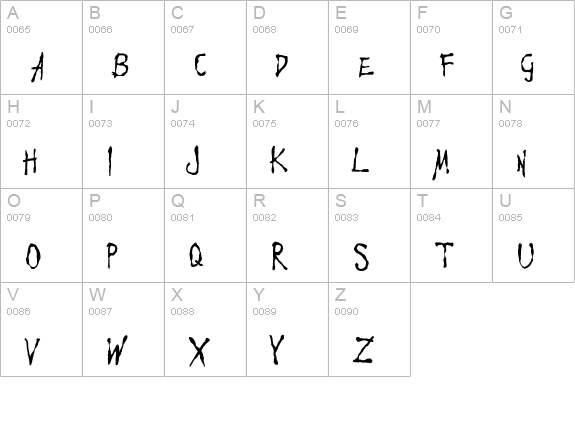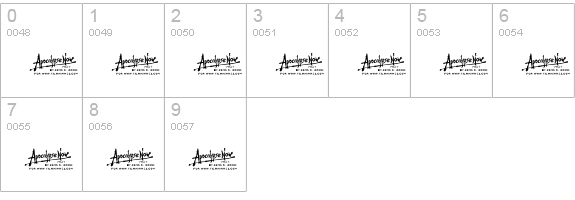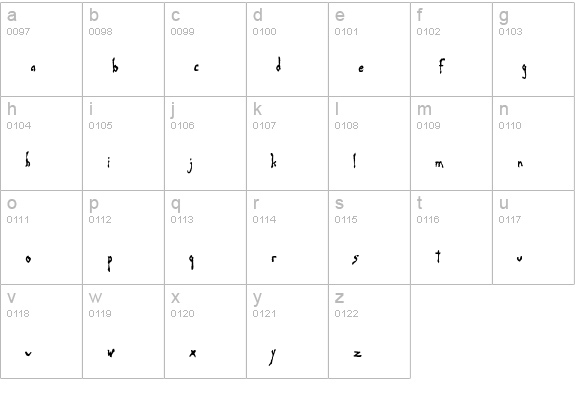
Apocalypse Now Font Details
Introducing Apocalypse Now font, a powerful and dynamic typeface that exudes a sense of urgency and intensity. This bold font is perfect for projects that demand a strong and commanding presence, making it ideal for posters, headlines, and other display purposes. With its rugged and edgy design, Apocalypse Now font captures the essence of chaos and destruction, creating a visually striking impact. The best part? Apocalypse Now font is available for free download at FontsMarket.com! Don't miss out on the opportunity to add this unique and eye-catching font to your collection. Whether you're working on a creative project or looking to make a statement, Apocalypse Now font is sure to leave a lasting impression. Download it now and unleash the power of this captivating typeface in your designs.